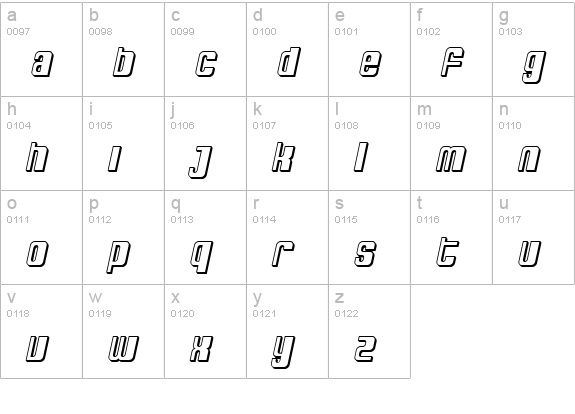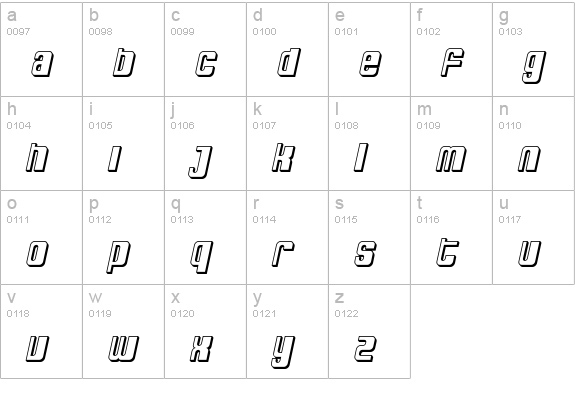
SF DecoTechno Shaded Oblique Font Details
SF DecoTechno Shaded Oblique is a distinctive, italic variant in the SF typeface family \xE2\x80\x94 well suited to design and typography projects.
SF DecoTechno Shaded Oblique is a modern and sleek font that seamlessly blends elements of both Art Deco and futuristic technology. This unique typeface captures the essence of a bygone era while infusing it with a contemporary twist. With its sharp, angled lines and bold, geometric shapes, SF DecoTechno Shaded Oblique exudes a sense of sophistication and innovation. The shading effect adds depth and dimension to each letter, giving them a three-dimensional appearance that is visually striking. This font is perfect for projects that require a touch of elegance and a hint of avant-garde style. Whether it's a poster, a logo, or a headline, SF DecoTechno Shaded Oblique will make a bold statement and captivate the viewer's attention. One of the best features of SF DecoTechno Shaded Oblique is that it is free to download. You can easily access this stunning font at FontsMarket.com, where it is available for immediate download. This means that you can start using SF DecoTechno Shaded Oblique right away, without any hassle or additional cost. So, if you're looking for a font that combines the charm of Art Deco with the sleekness of modern technology, SF DecoTechno Shaded Oblique is the perfect choice. Its unique design and free availability make it a valuable asset for any designer or creative professional. Download SF DecoTechno Shaded Oblique today and elevate your projects to new heights of style and sophistication.